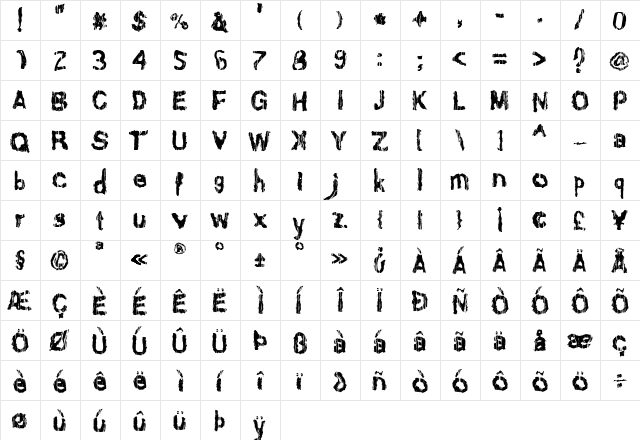
Ashes To Ashes Regular
| Foundry | David Kerkhoff |
| Designer | David Kerkhoff |
Design Context for Ashes To Ashes Typeface
Ashes To Ashes is a composed and adaptable typeface that performs quietly and consistently across a wide range of design contexts.